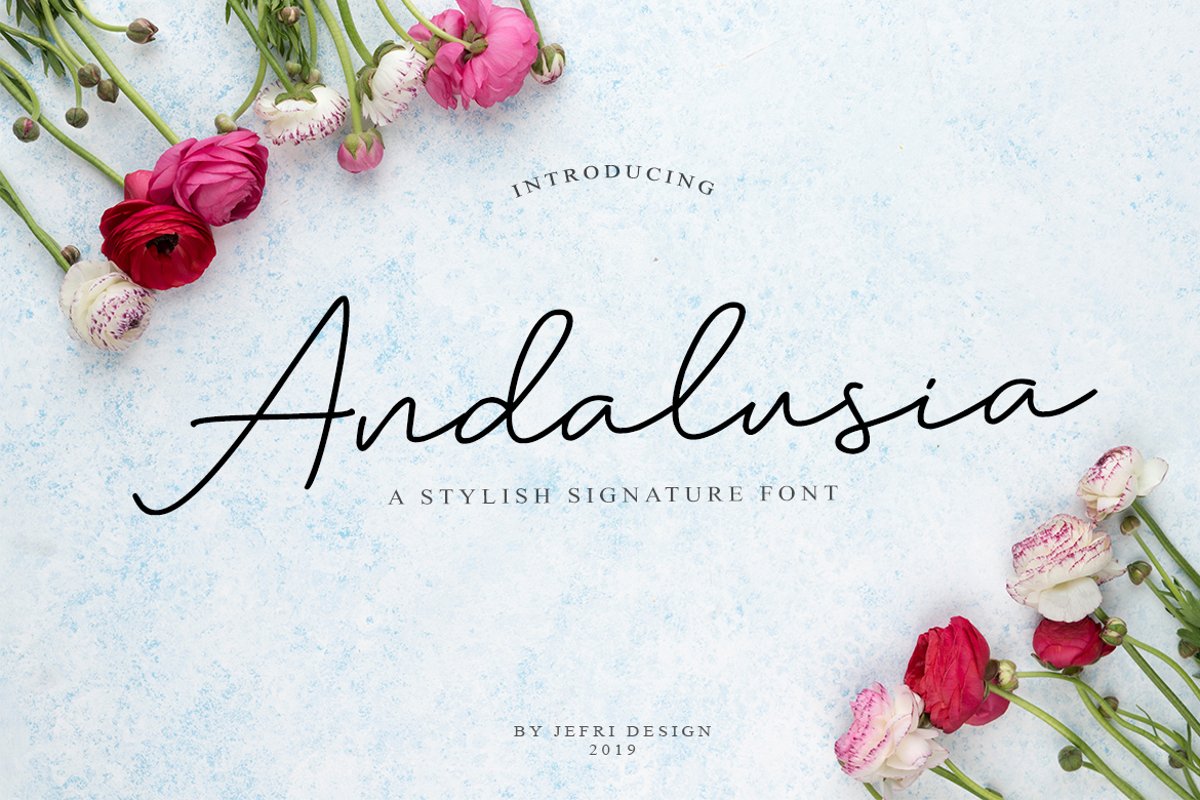
Andalusia Signature Script
Andalusia
This is our latest product called Andalusia.
Andalusia is a sweet and simple script with a romantic feel. Fall in love with its raw authenticity!
This font is suitable for use with signatures, logos, magazines, quotes,
fashion, watermark, invitation.